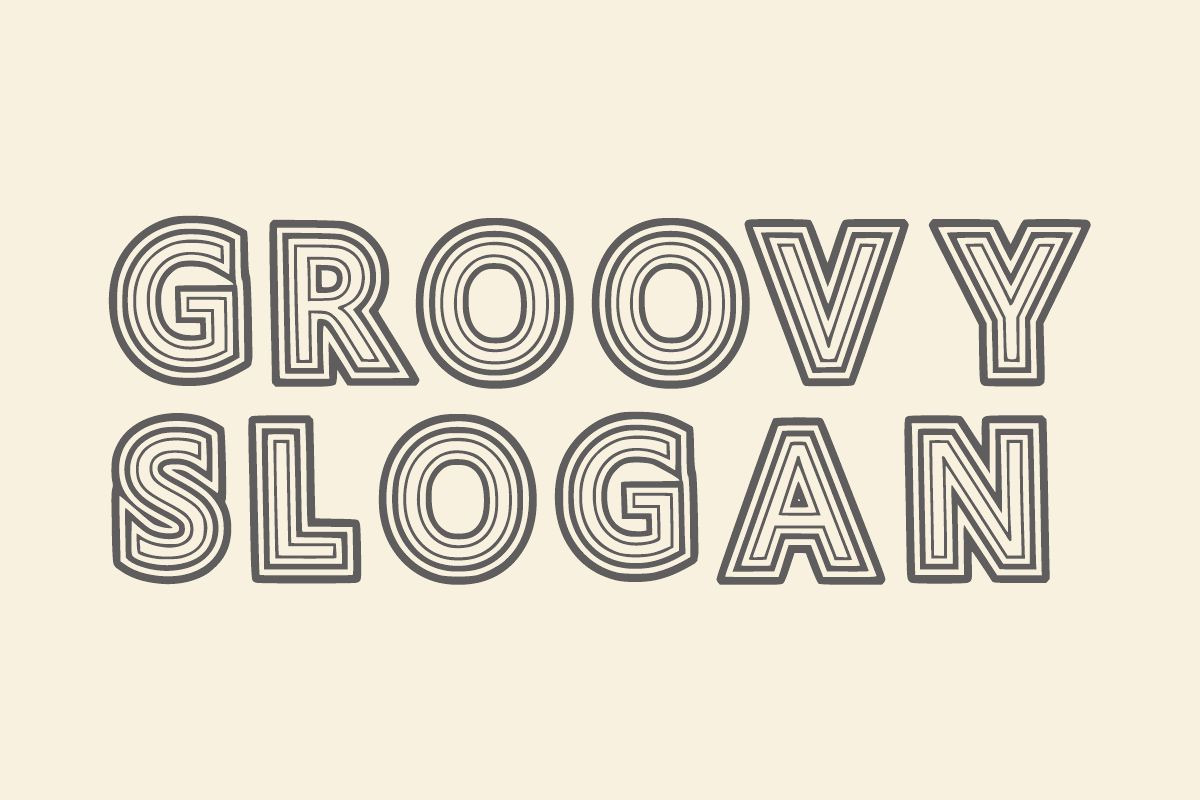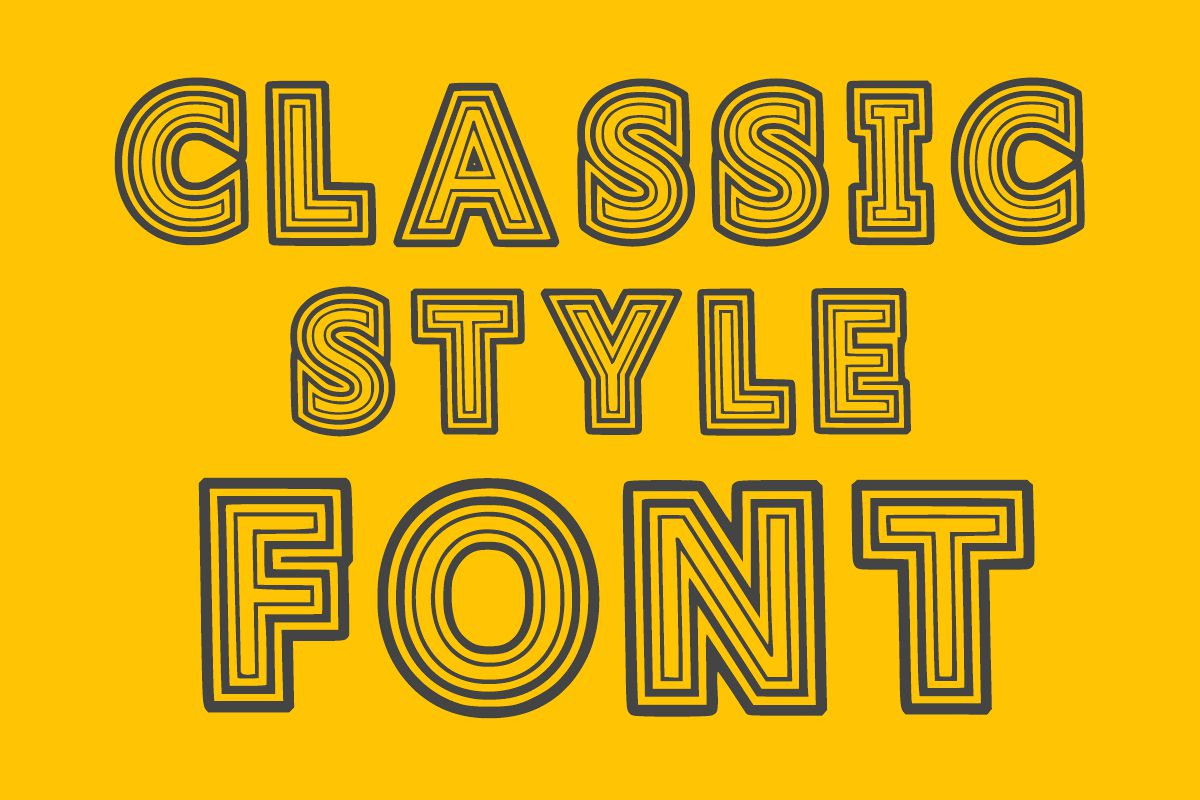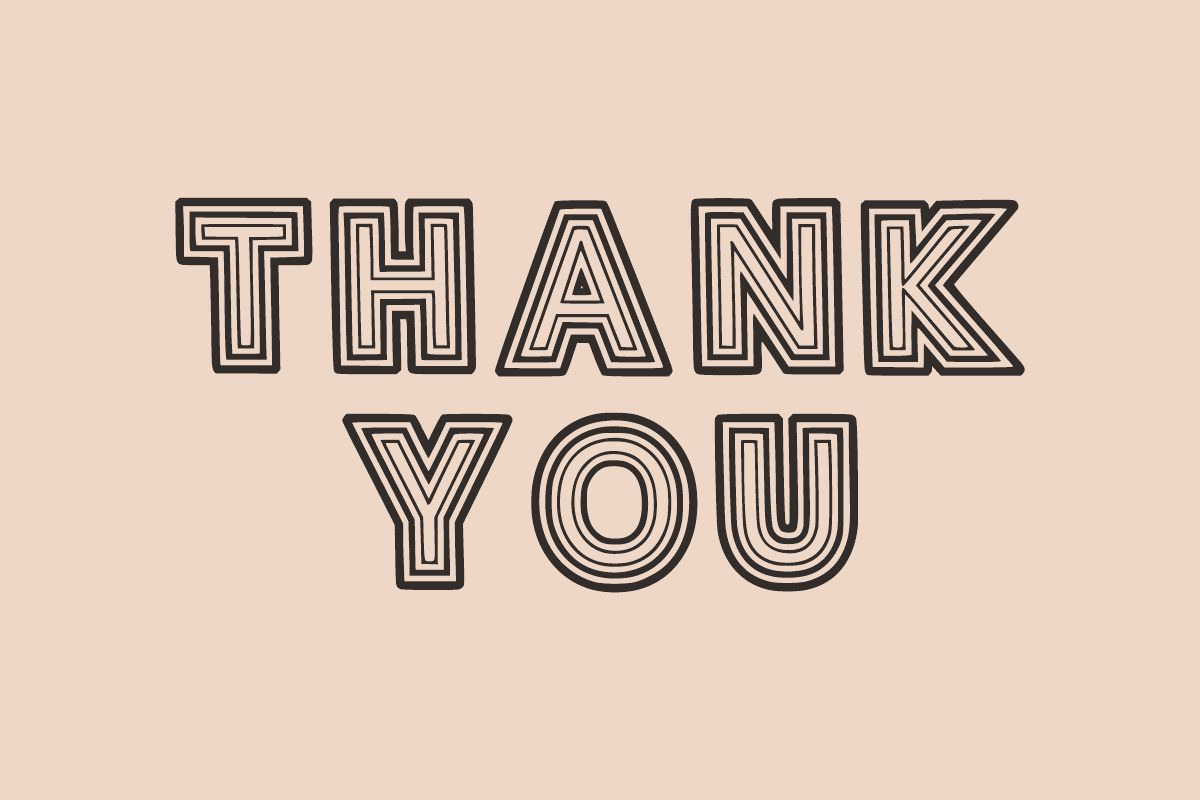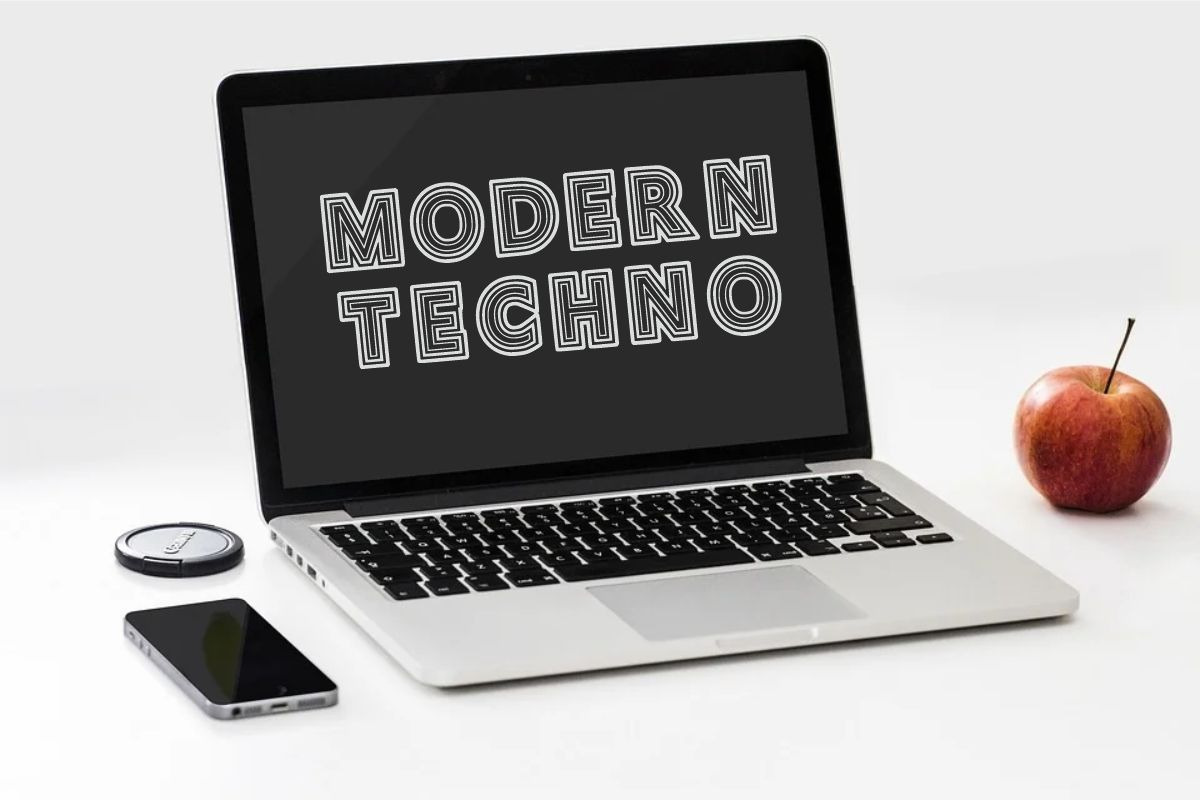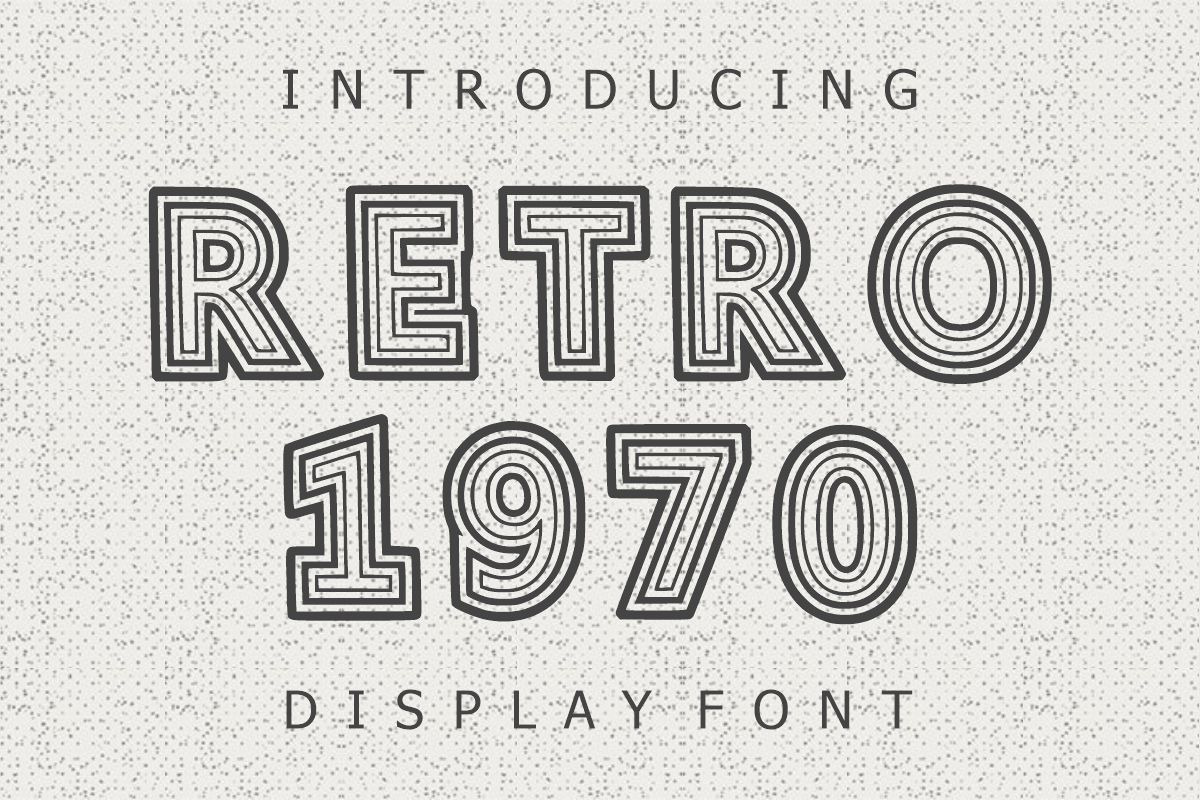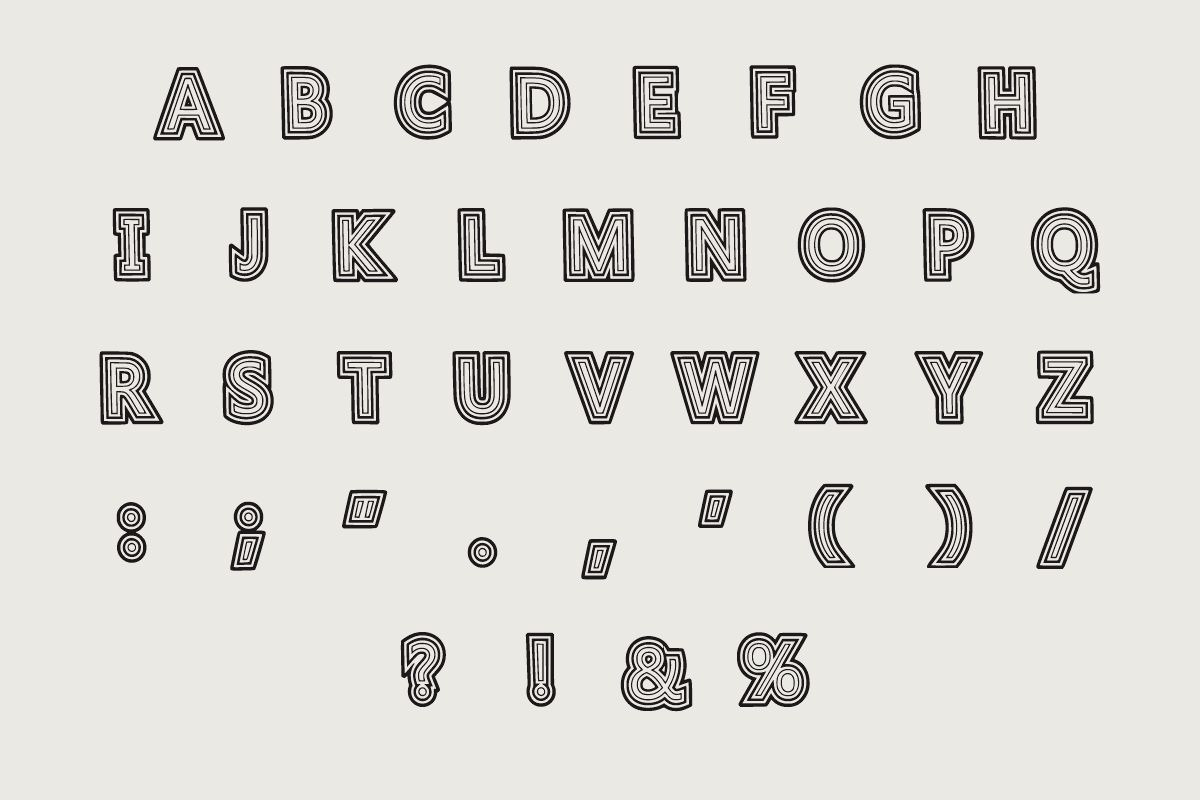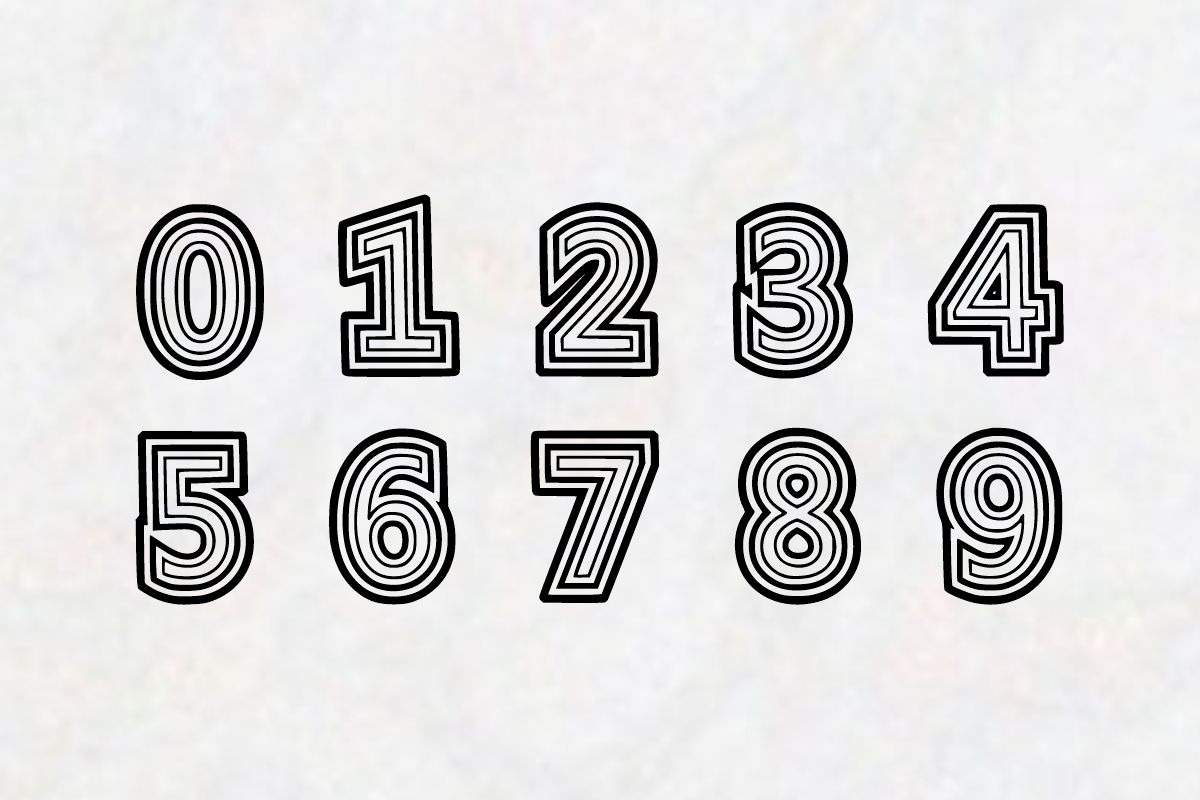
Retro 1970 - Old Font
Retro 1970 is a vintage, classic, and bold display font. You can use it for various projects such as blog posts, logos, branding, ads, invitations, greeting cards, planners, photo albums, decorations, and much more.